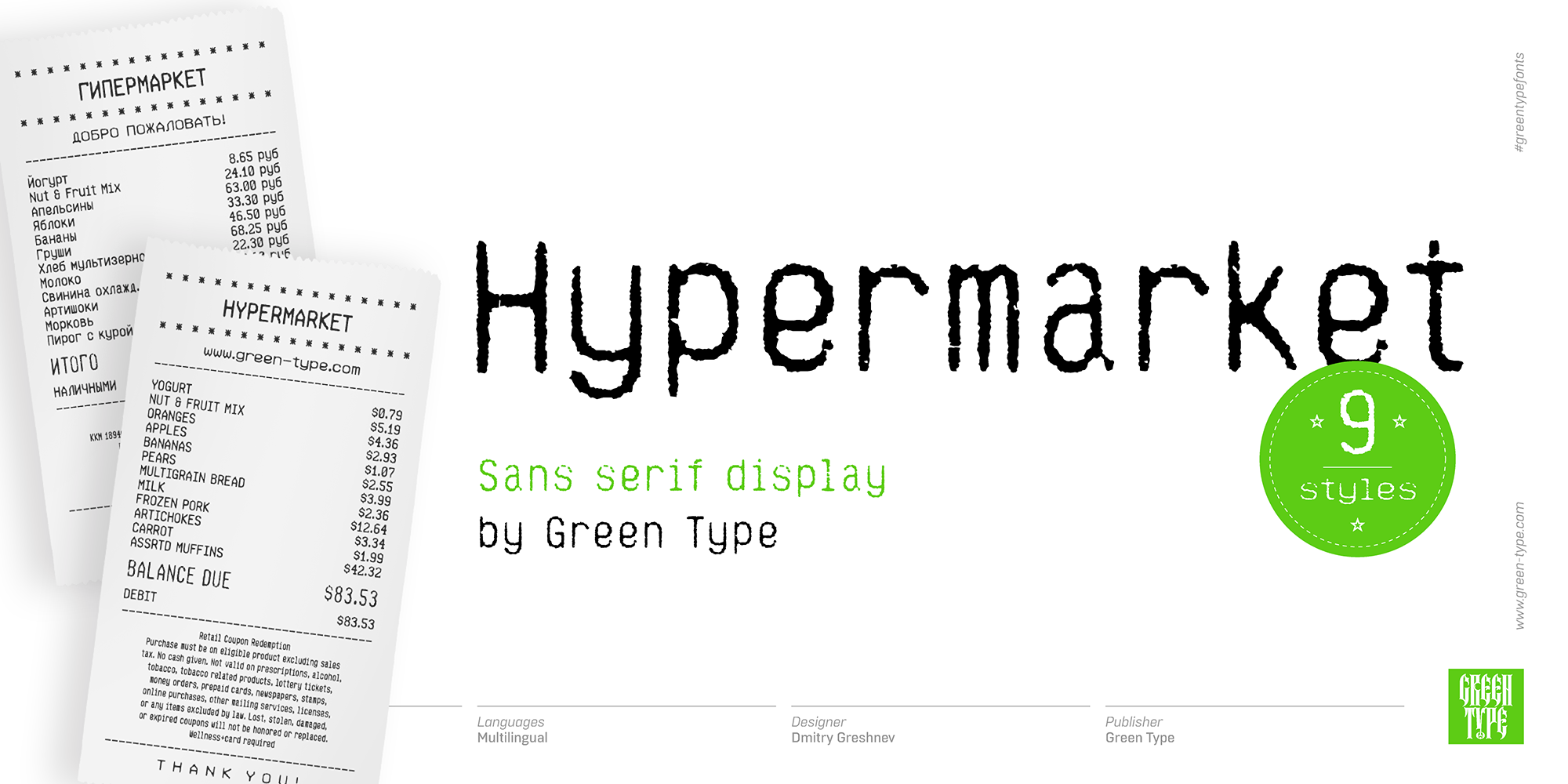
Hypermarket Font is perfect for retail signage, grocery store advertisements, supermarket promotional materials, shopping mall directories, product packaging design, discount store banners, wholesale market displays, commercial price tags, retail branding projects, and food court signage. This versatile typeface brings authentic marketplace energy to any commercial design project.
Hypermarket Font is exciting because it captures the bustling energy and commercial vibrancy of modern retail environments. Its bold, attention-grabbing letterforms are specifically designed to cut through visual noise in busy shopping environments, making it ideal for promotional materials that need to instantly communicate value and urgency to customers.
Hypermarket Font family includes multiple weights and styles: Regular, Bold, Light, Medium, Black, Condensed, Extended, Italic variations, and Outline versions. Each style maintains the distinctive commercial character while offering designers flexibility for hierarchical typography in retail applications.
Whether you're designing for supermarkets, department stores, or online retail platforms, Hypermarket Font Free Download delivers professional results that resonate with consumers. This dynamic typeface combines readability with commercial appeal, making it an essential tool for modern retail design. The font's clean geometry and strong presence ensure maximum impact in both digital and print applications, from small product labels to large-scale storefront signage.